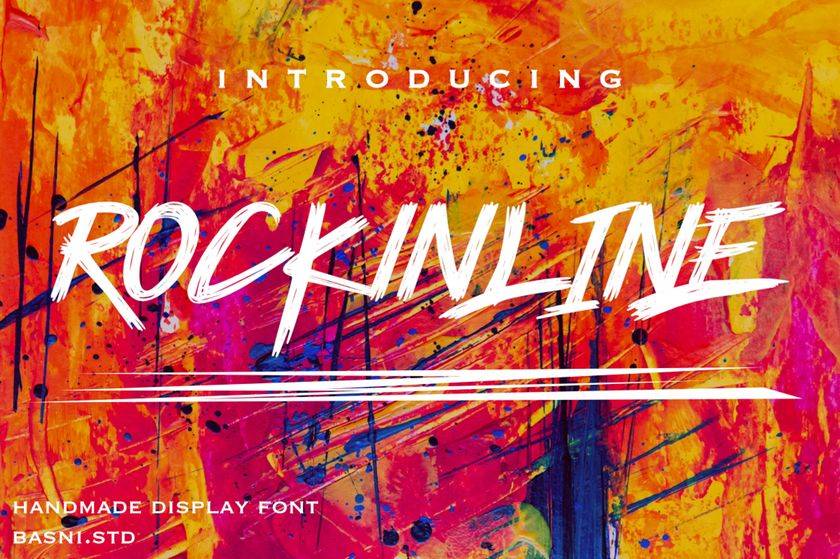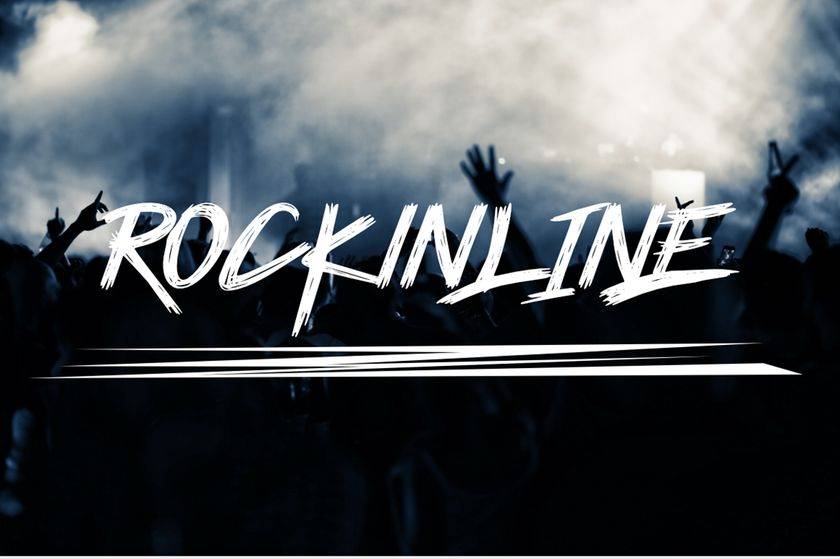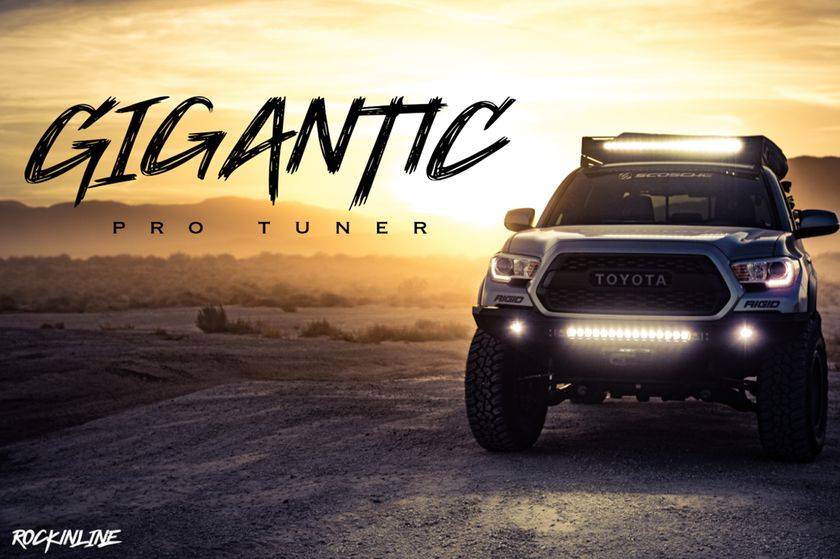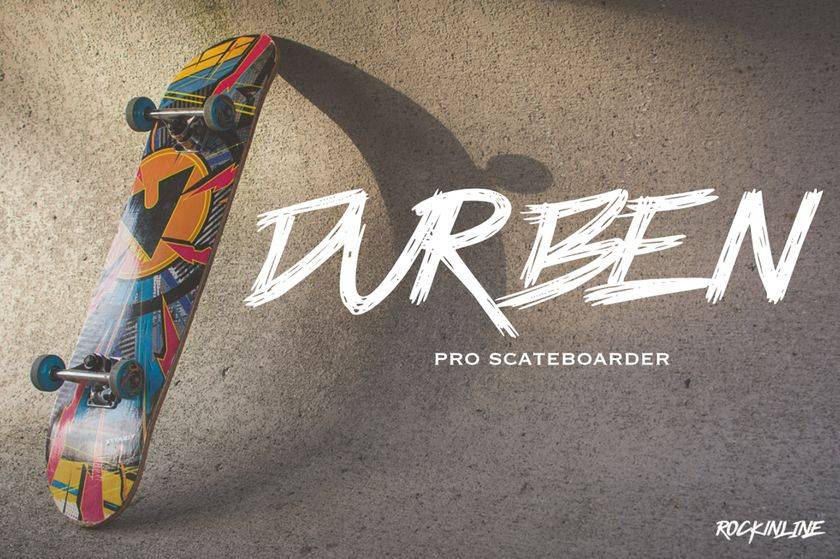
Rockinline is a bold, edgy handwritten font with a rough, textured stroke that gives it an energetic and rebellious vibe. Its tall, slanted letterforms and sharp, sketch-like lines make it perfect for designs that want to convey a raw, artistic, or alternative feel, ideal for posters, music branding, and standout headlines. This font brings a dynamic and informal personality that grabs attention while maintaining readability.
Rockinline Font
About Rockinline Font